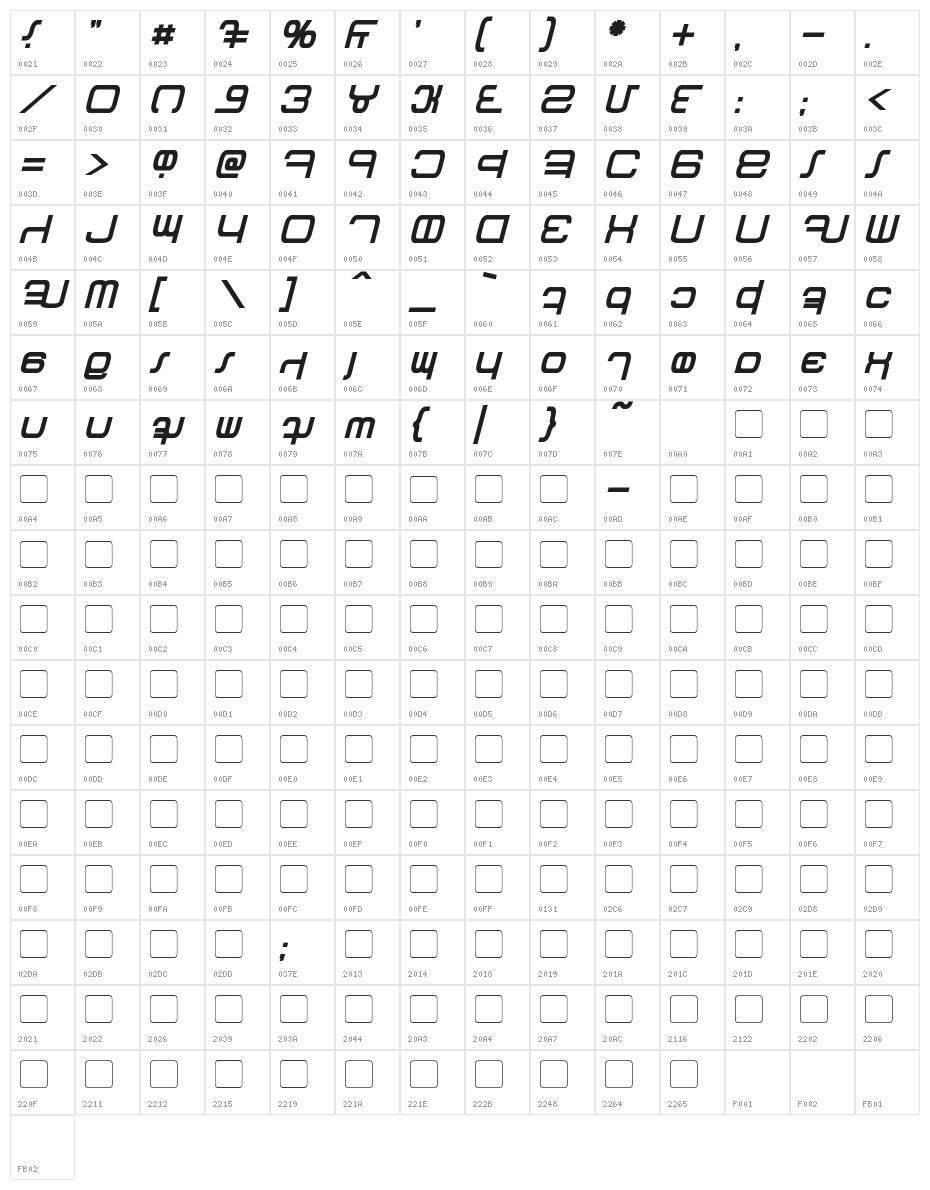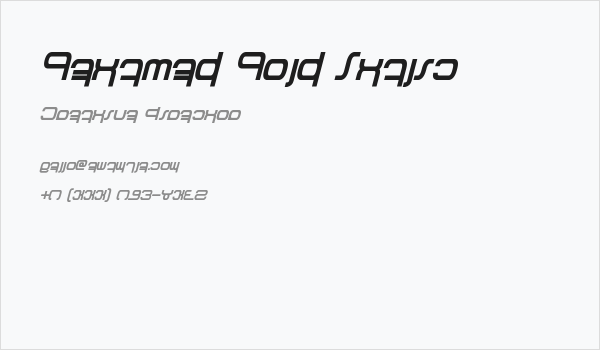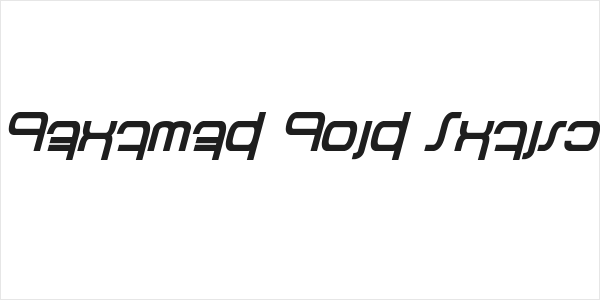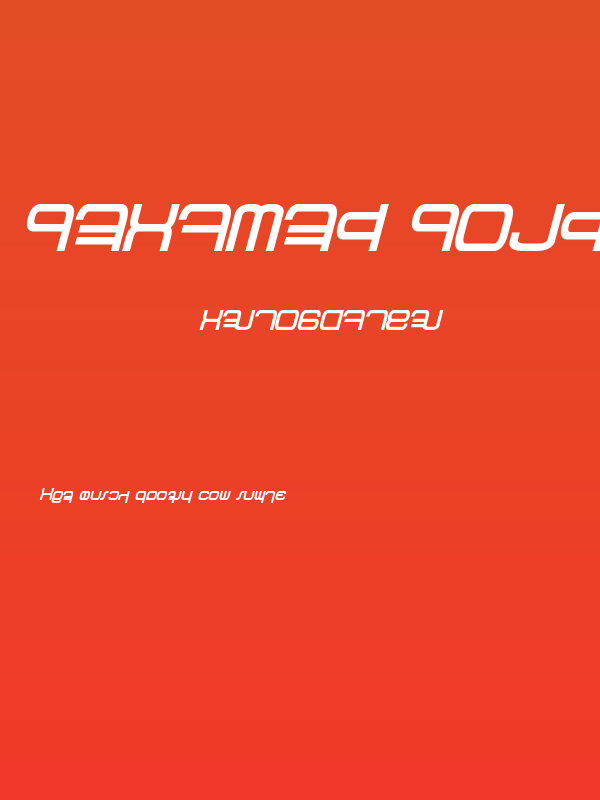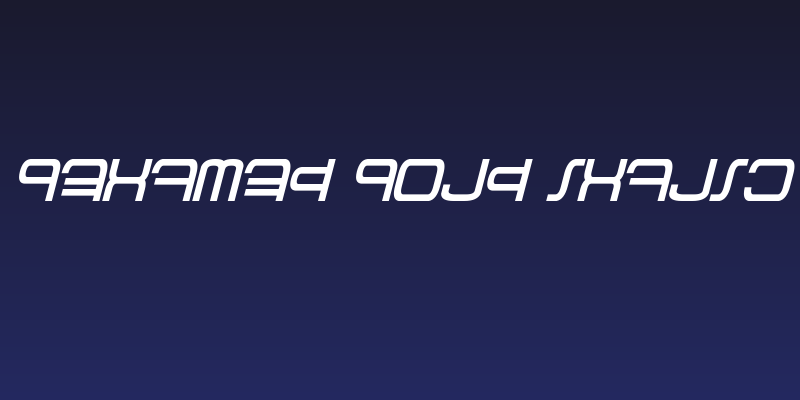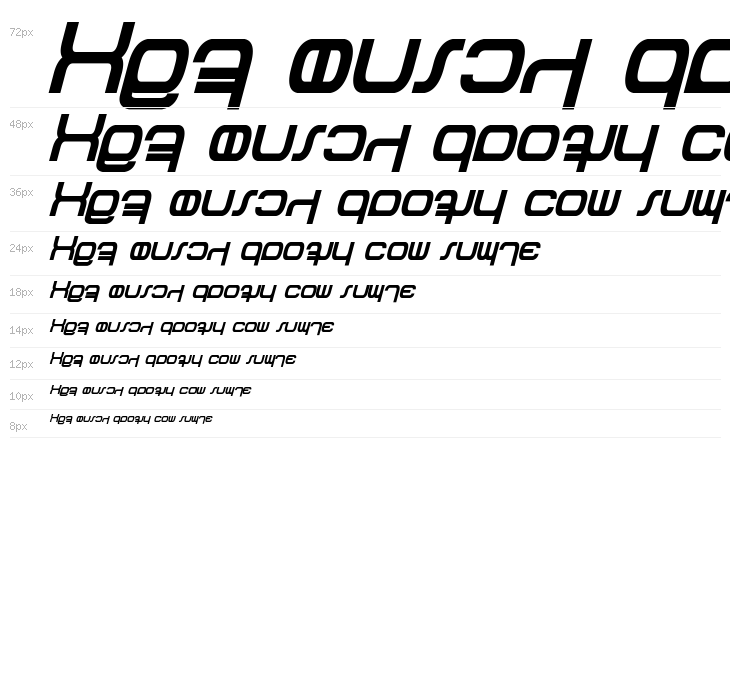
Betazed Bold Italic Font
Betazed Bold Italic Description
This font features a futuristic and angular design, characterized by its bold and italicized form. The letters are slanted, giving a sense of motion and speed, while maintaining a geometric structure. The strokes are thick and consistent, contributing to a strong visual impact. The characters are uniquely styled with sharp edges and a modern aesthetic, making it stand out in any design. The numbers and special characters follow the same angular and bold style, ensuring uniformity across all elements. This font is ideal for projects that require a contemporary and dynamic look.
| Proposed Projects | Ideal for sci-fi themed projects, technology branding, video game titles, and modern poster designs. |